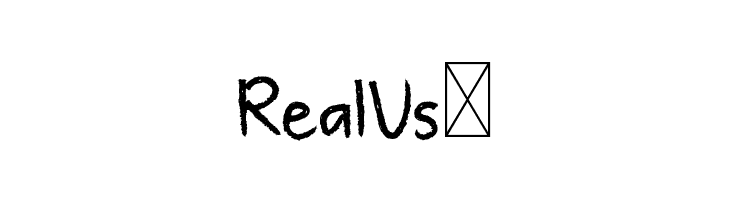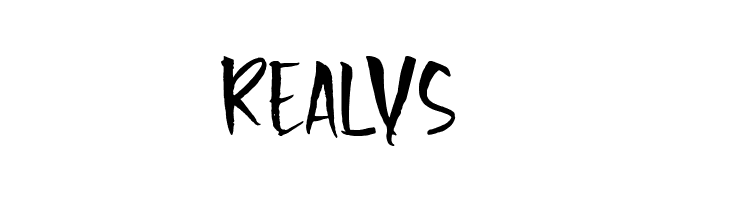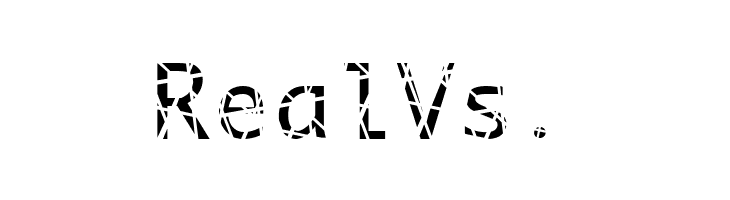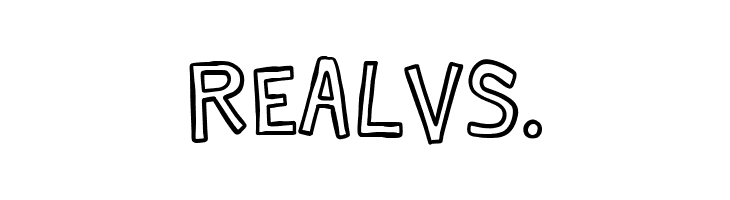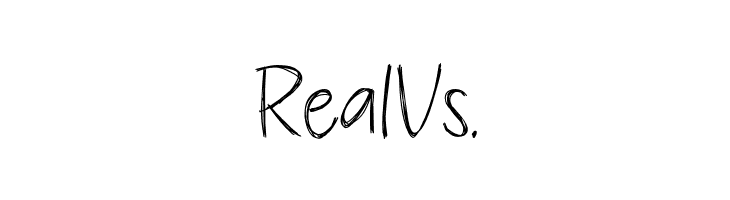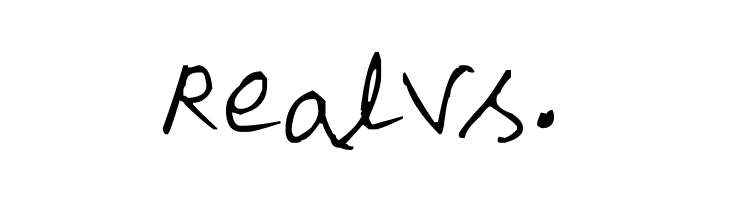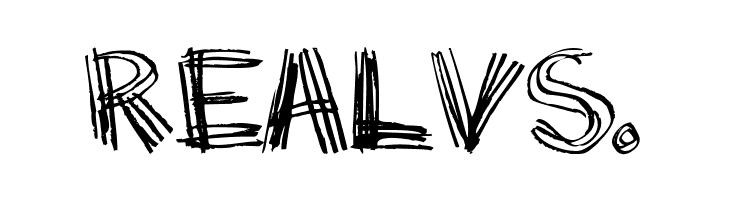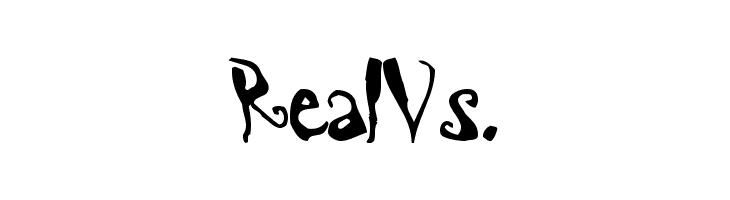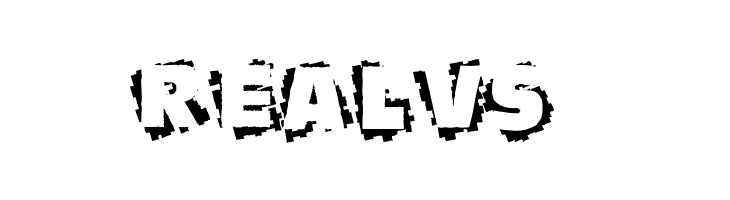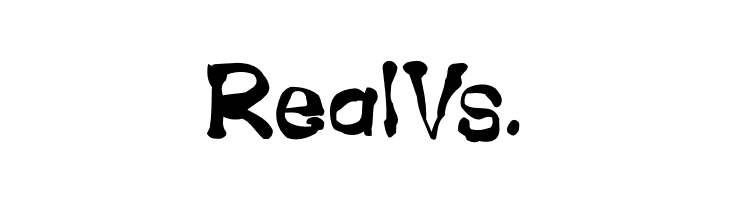
A scratchy, hand-drawn font with a dynamic and textured style.
A bold, distressed font with a scratch-like texture, perfect for dynamic and edgy designs.
A bold, rugged font with a distressed, handcrafted look.
A bold, rugged font with a distressed, handcrafted appearance.
A distressed, graffiti-like font with jagged, uneven strokes and a rebellious aesthetic.
A bold, hand-drawn font with a rough, textured brush stroke appearance.
A bold, textured, hand-drawn font with a brush-like appearance.
A sketch-like, hand-drawn font with dynamic and irregular strokes.
A textured, hand-drawn font with a playful, chalk-like appearance.
A bold, jagged font with a chaotic, energetic style.
A scratchy, hand-drawn font with a dynamic and edgy appearance.
A rugged, edgy font with sharp, jagged lines and a rebellious aesthetic.
A bold, distressed font with a scratched, textured appearance.
A bold, jagged font with a scratch-like, distressed appearance.
A playful, hand-drawn font with a sketch-like, whimsical style.
A playful, hand-drawn font with scratchy, textured lines.
A playful, hand-drawn font with a casual and informal style.
A casual, handwritten font with uneven strokes and a playful, personal touch.
A bold, handwritten font with a dynamic and informal style.
A bold, expressive brush-style font with a modern artistic flair.
A jagged, hand-drawn font with an edgy, graffiti-like style.
A playful, hand-drawn style font with irregular, textured strokes.
A playful, hand-drawn font with quirky, artistic flourishes.
A whimsical, hand-drawn font with playful, irregular characters.
A bold, decorative font with whimsical and artistic strokes.